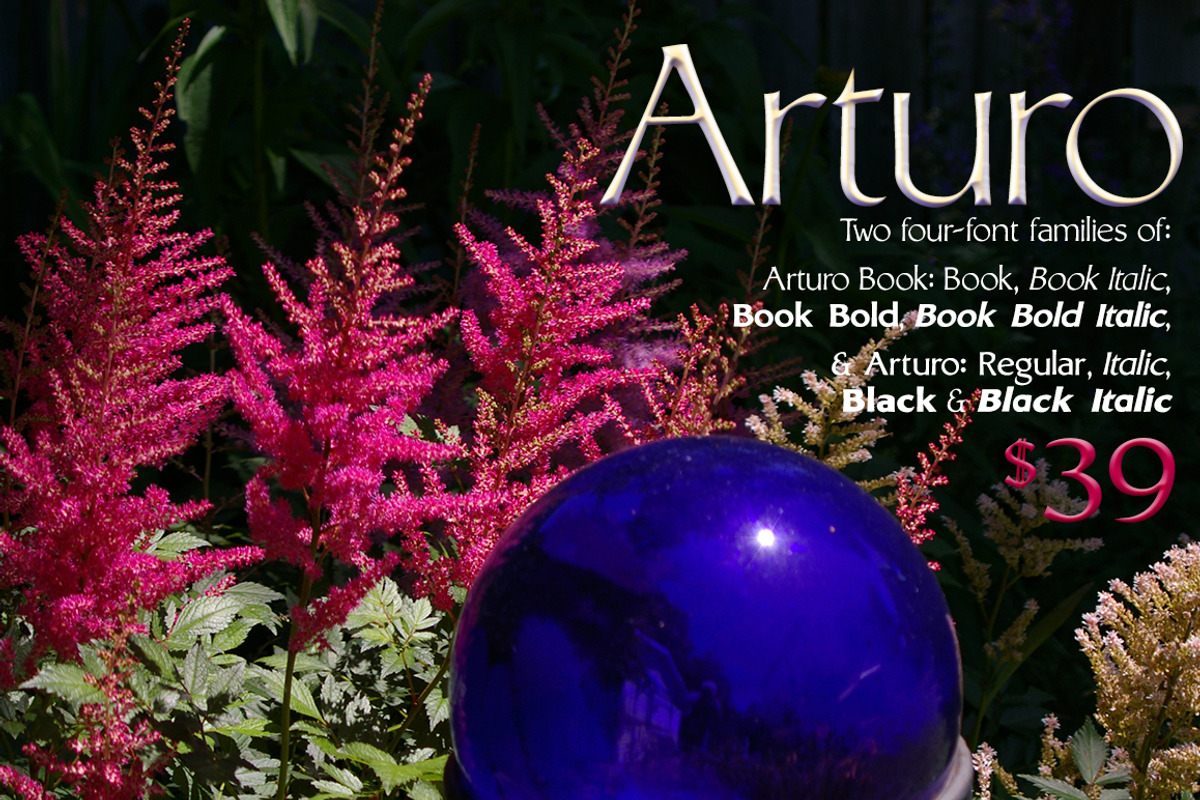
Arturo Font Families: 8-fonts
Arturo Font Families: 8-fonts by Radiqx Press is a font selected for branding, posters, packaging, typography.
Why Arturo Font Families: 8-fonts is worth a look
Arturo Font Families: 8-fonts by Radiqx Press fits naturally into Branding, posters, packaging, typography.